An approachable wordmark for brand’s best friend that we achieved by striking a balance between casual forms and precision.
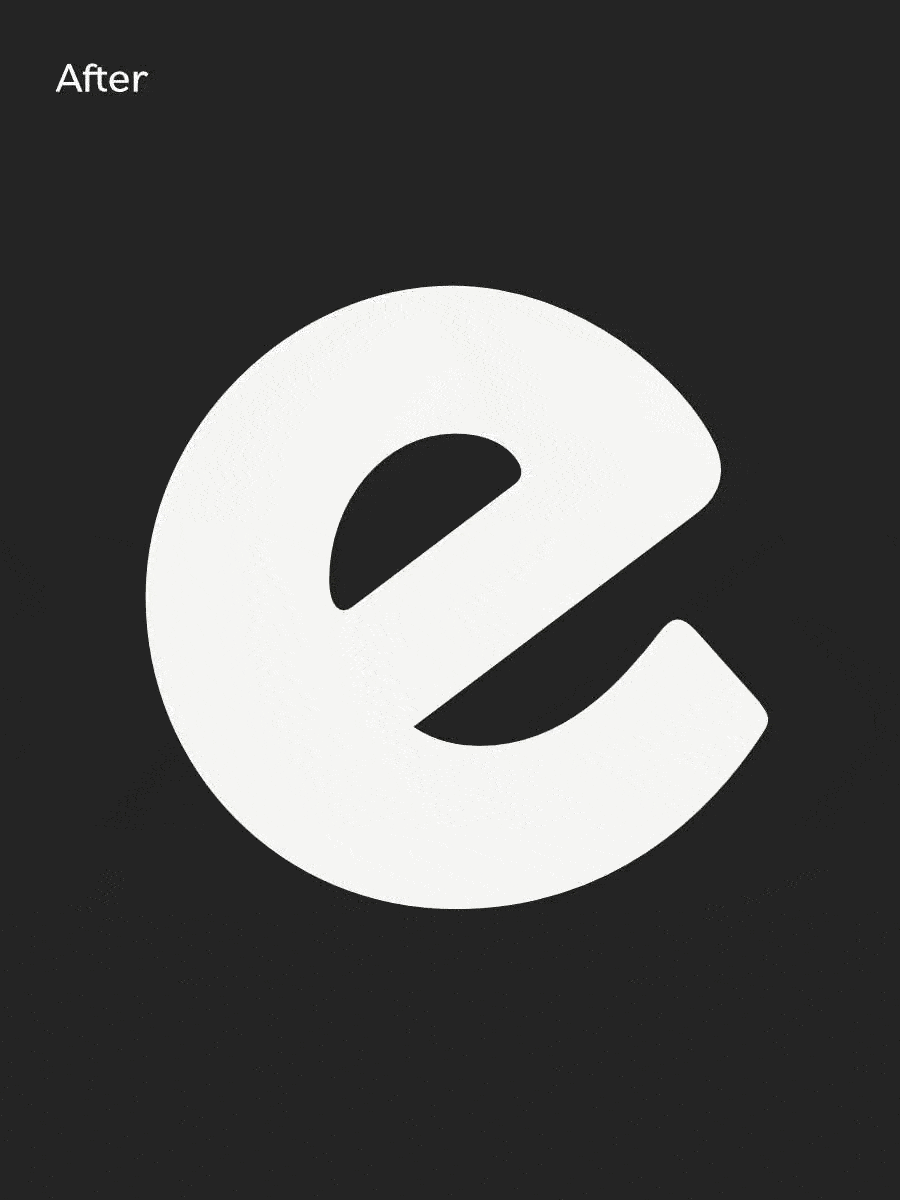
The humble hound wordmark was a project about making subtle details more consistent and correcting errors that happened when modifying the original typeface. Some of the letter joins were rounded in the process which reduced the sharpness of the wordmark. When aiming to communicate friendliness and quality, there needs to ba a careful balance of casual forms and precision. The rotated ‘e’ needed the most revision and re-balancing.